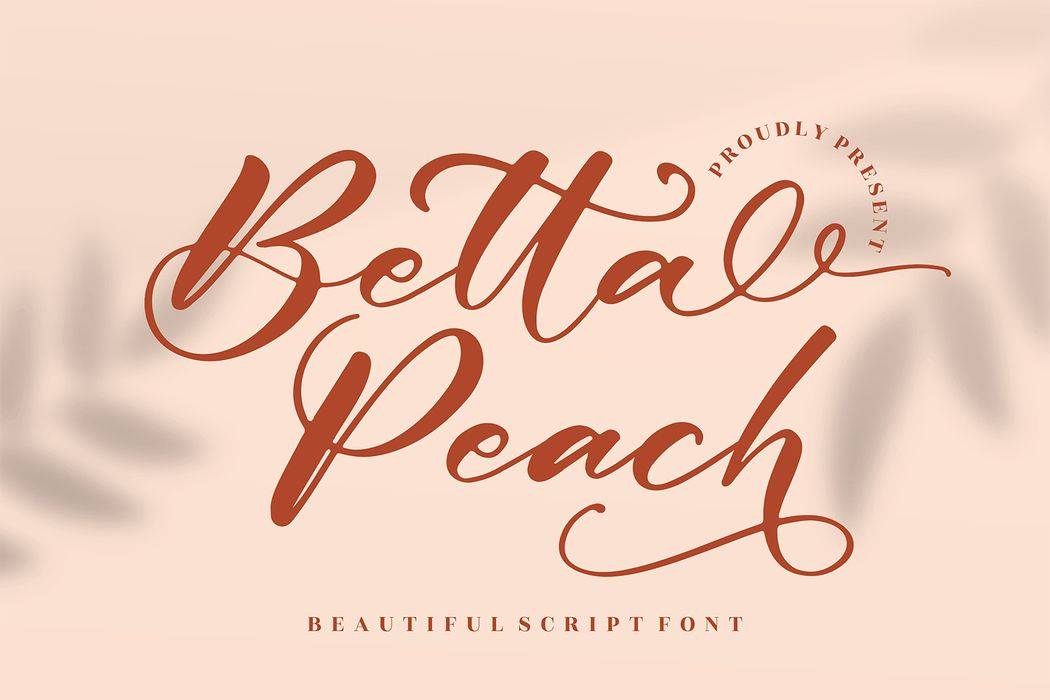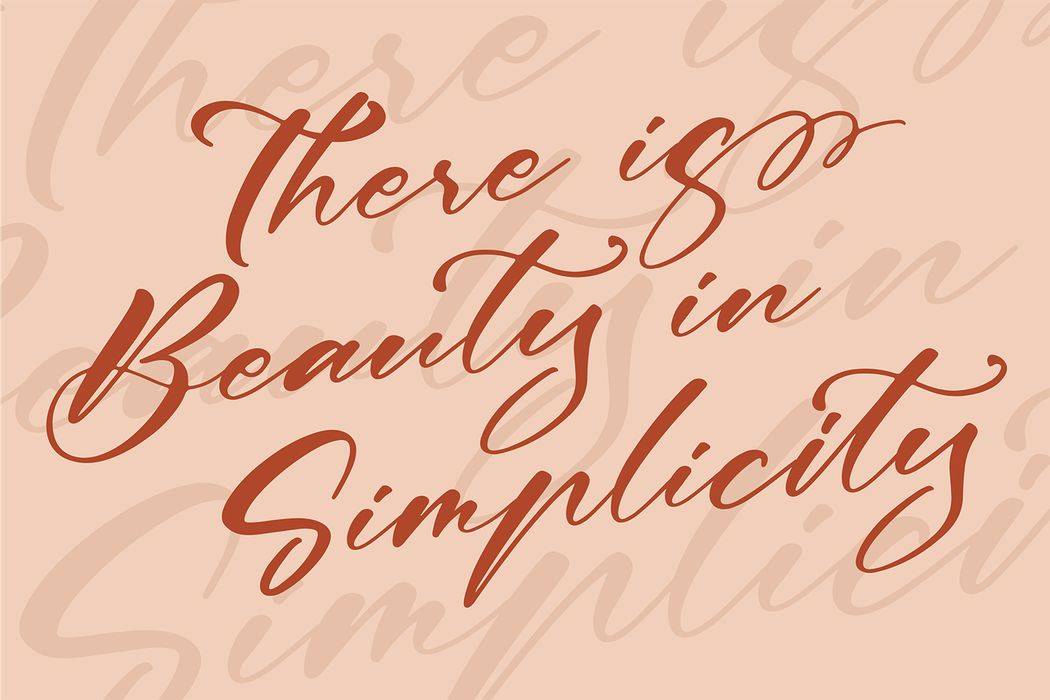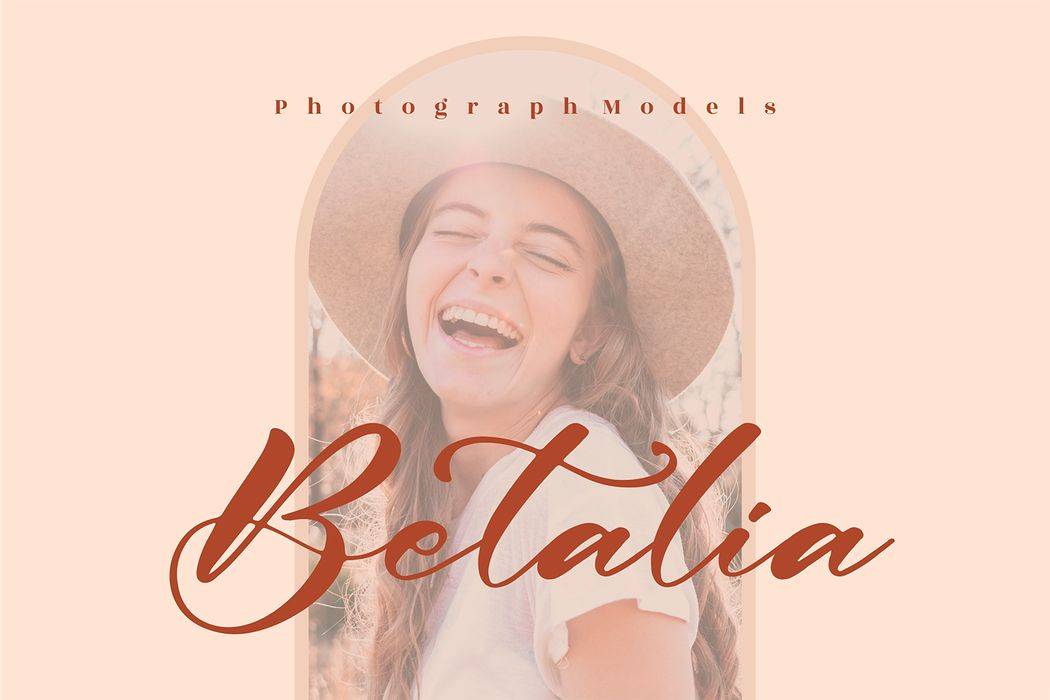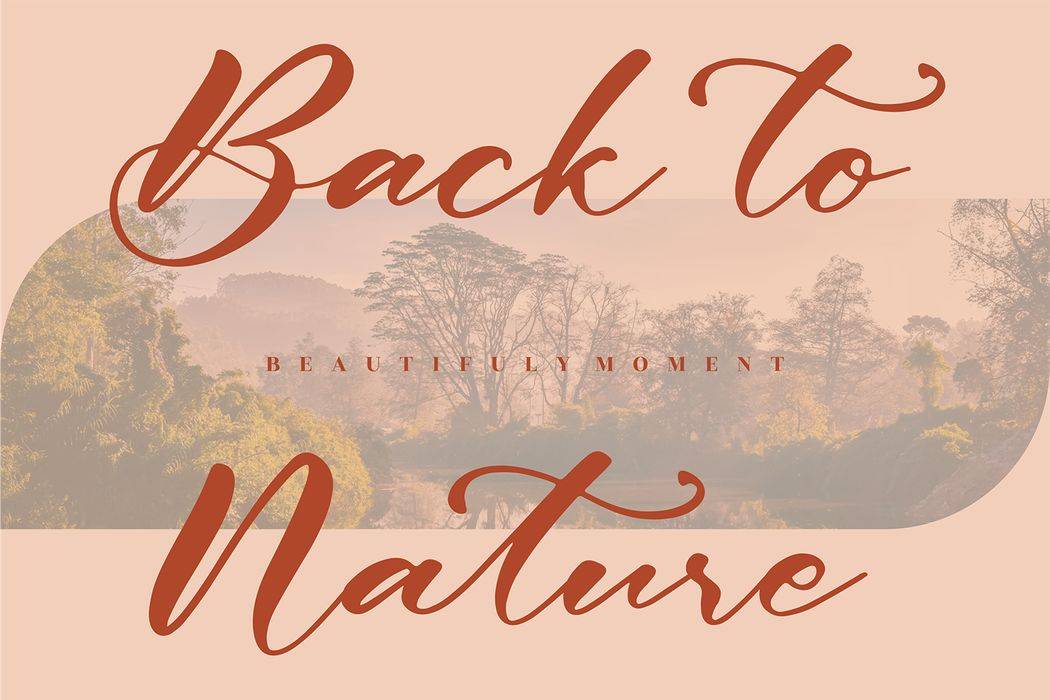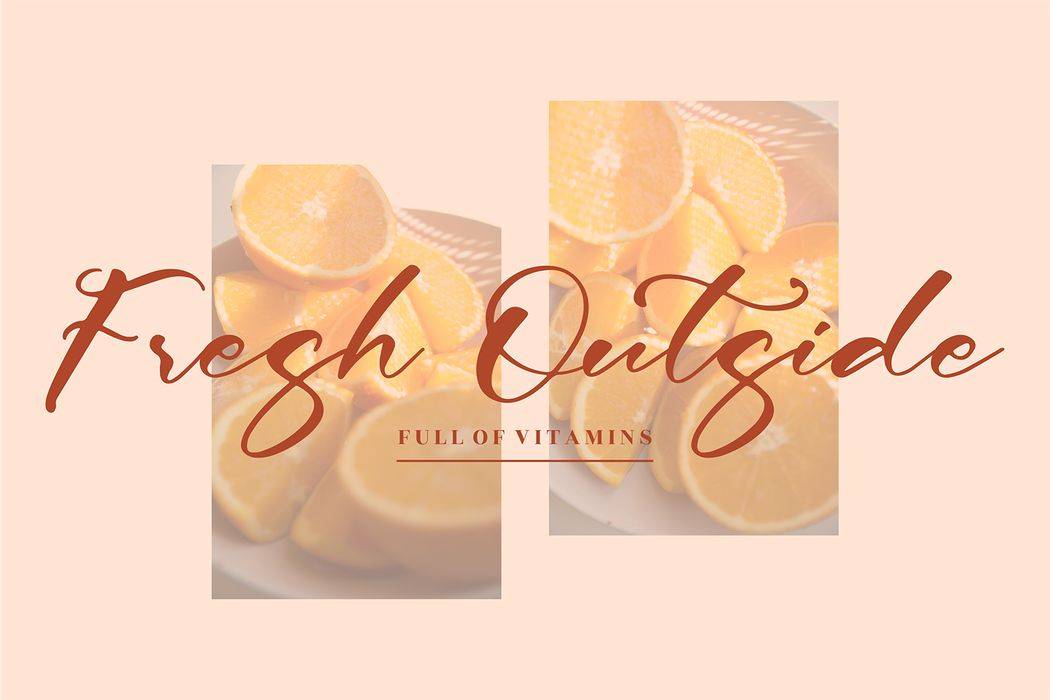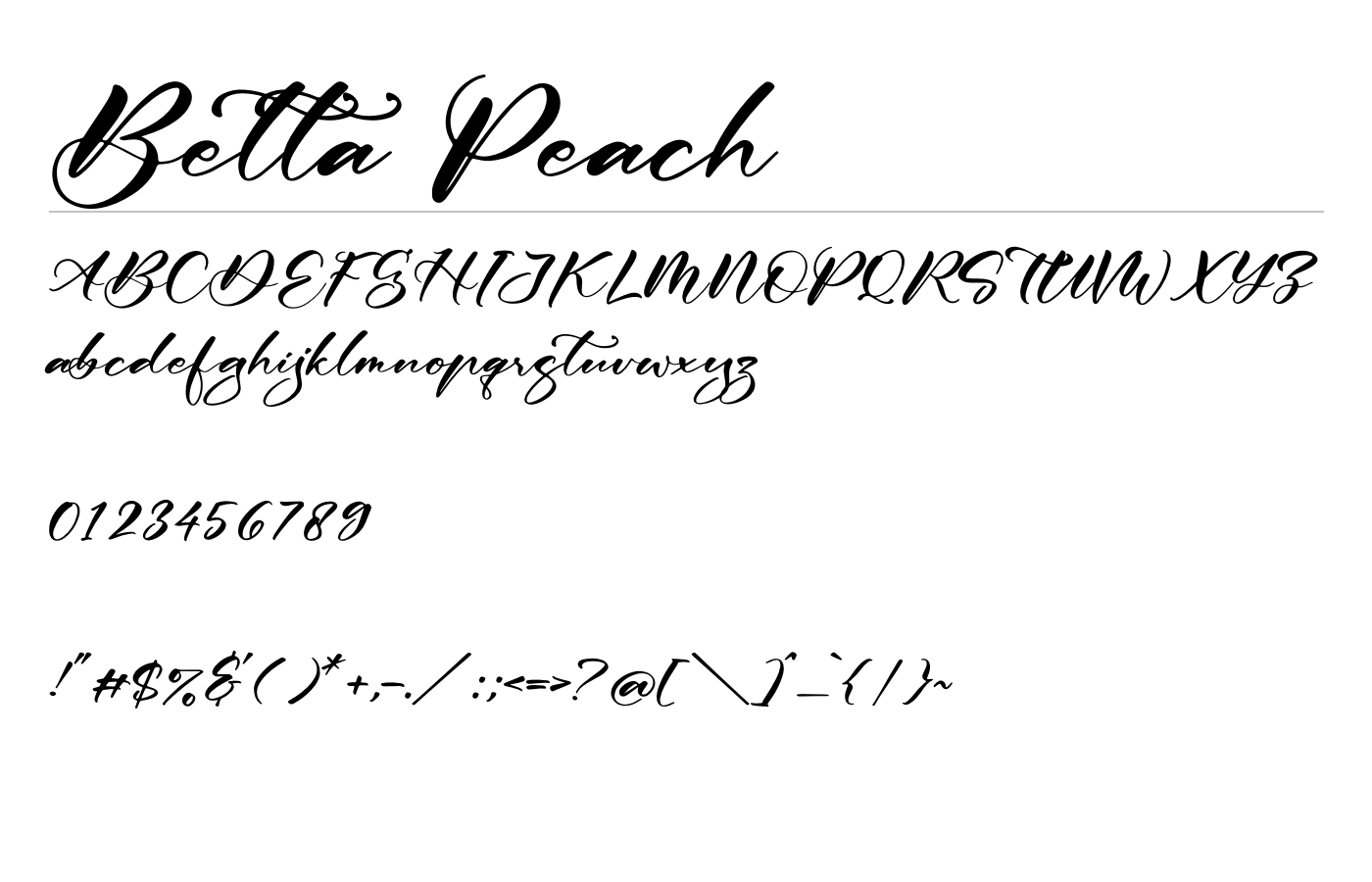
Betta Peach is an elegant script font featuring fluid, calligraphic strokes with a lively, hand-lettered feel. Its high contrast and graceful swashes make it perfect for invitations, branding, and luxury packaging where a romantic and sophisticated touch is desired. This font’s stylish uppercase and lowercase characters, along with its refined numerals, create an inviting and artistic look suitable for headlines and decorative text.
Betta Peach Font